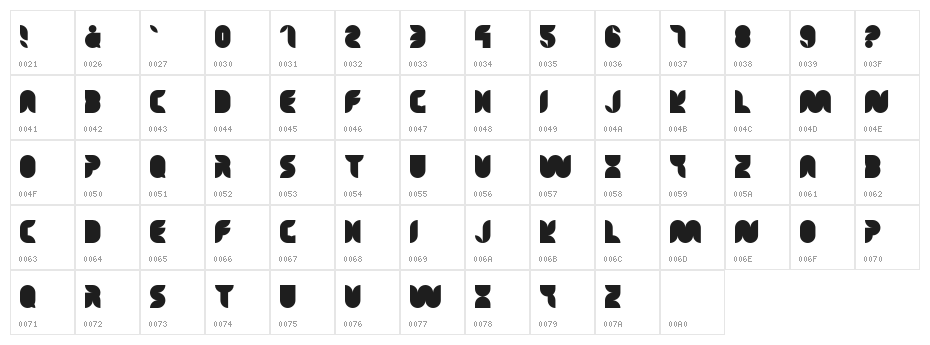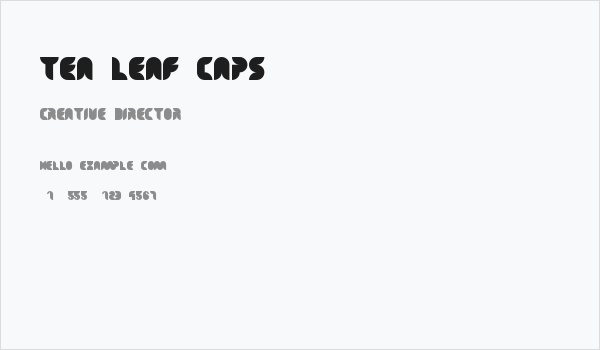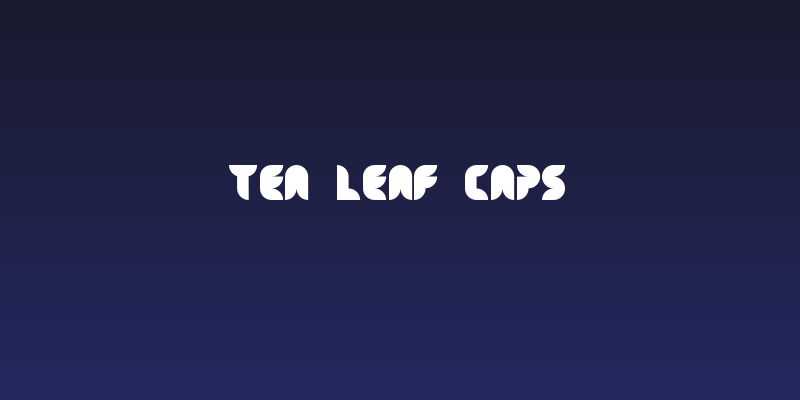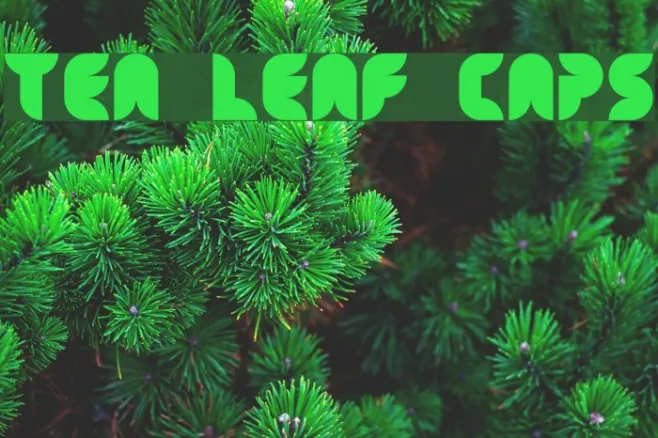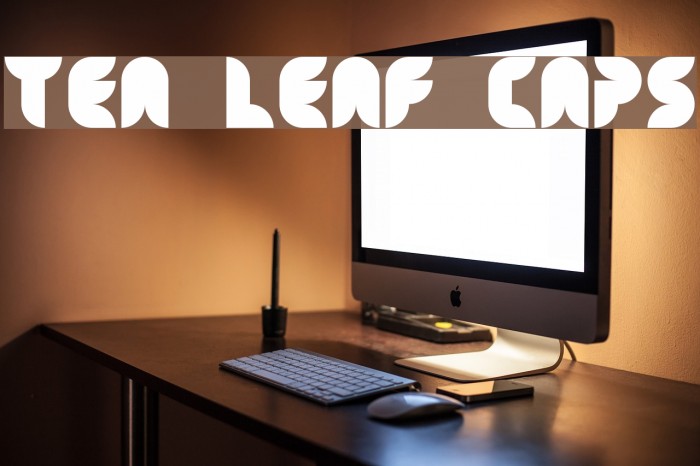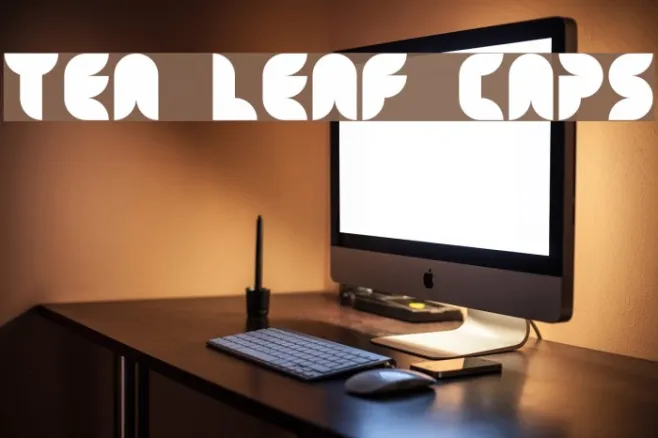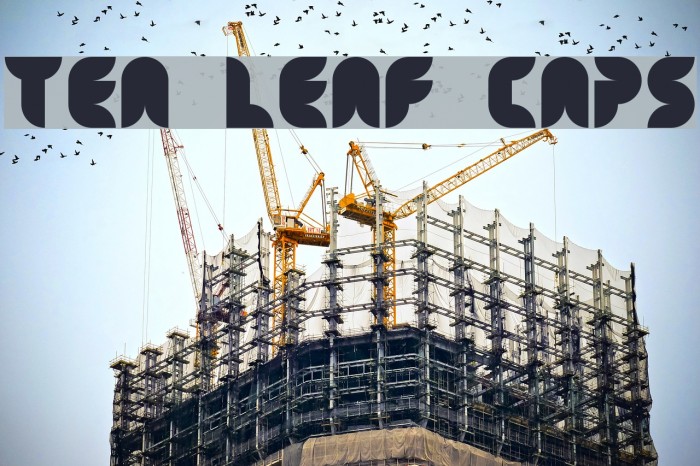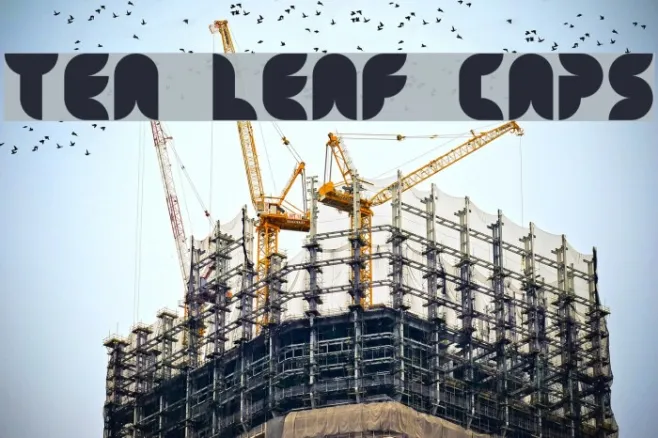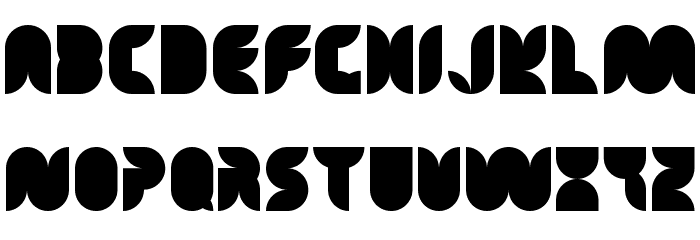
Tea Leaf Caps Font
Tea Leaf Caps Description
This font features a bold and modern design with a unique geometric style. The characters are constructed with thick, rounded shapes that create a strong visual impact. The use of negative space within the letters adds an artistic flair, making it stand out in any design. The uppercase and lowercase letters maintain a consistent style, while the numbers and special characters complement the overall aesthetic. This font is ideal for projects that require a bold statement and a contemporary look.